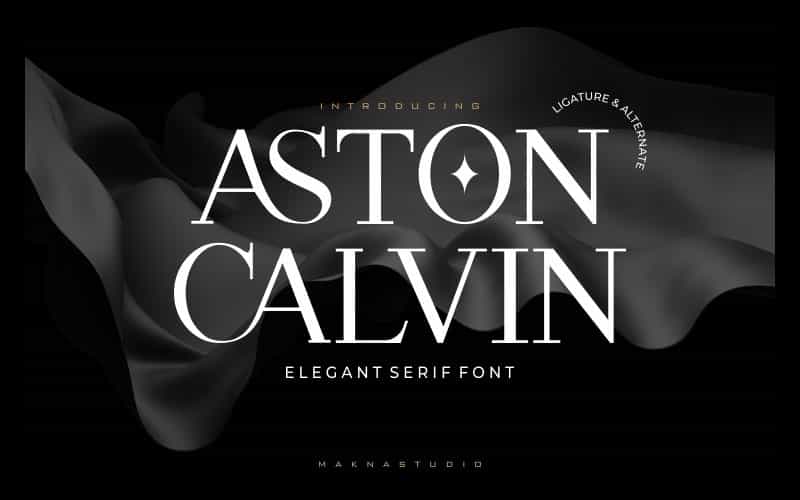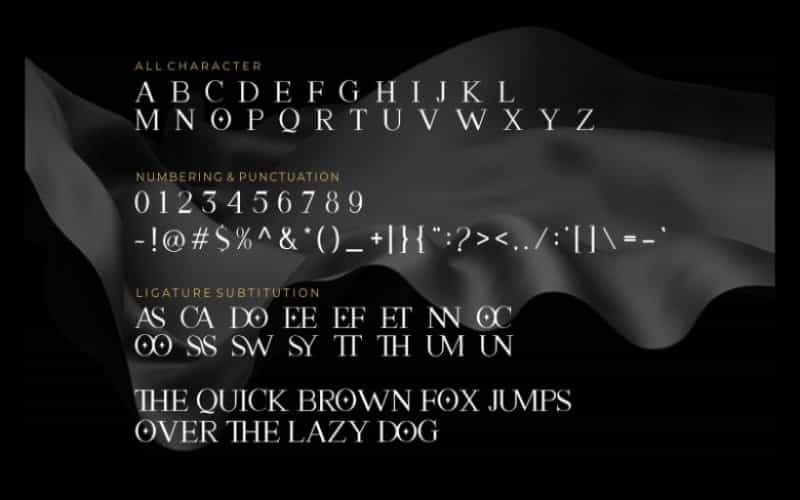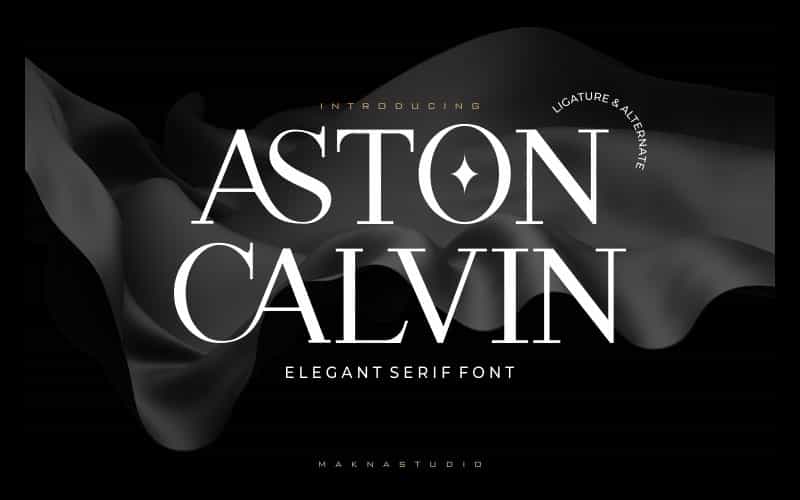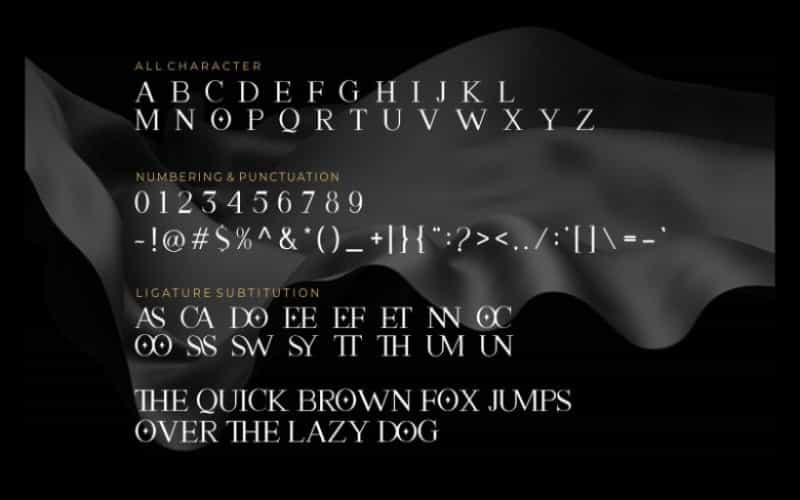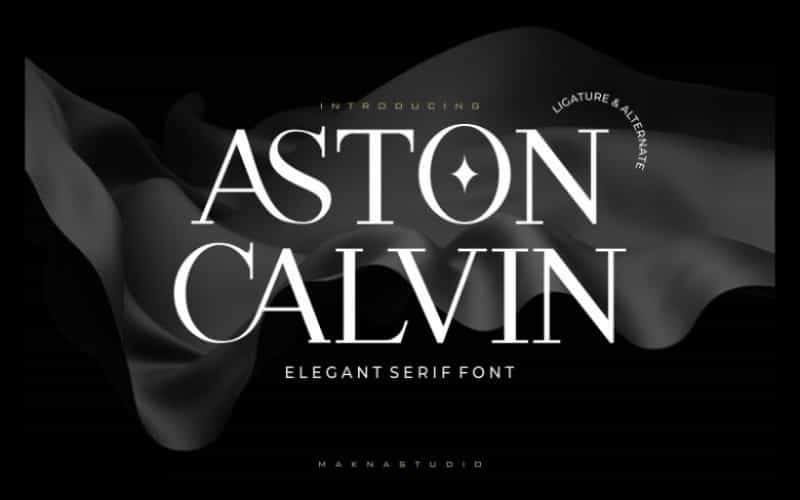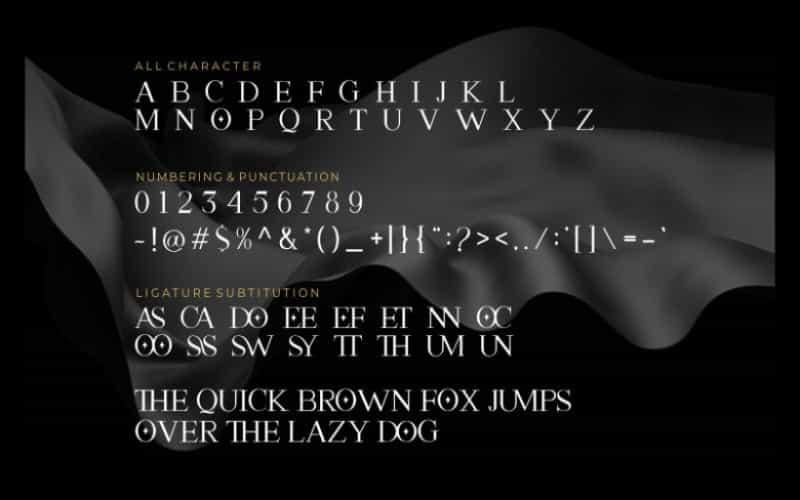
Our latest addition is Aston Calvin – a contemporary serif font with a chic design, perfect for creating modern day style in design work. Aston Calvin offers simple elegance in design work. It can help make it stand out against competing fonts while simultaneously being used to make modern statements about contemporary life.